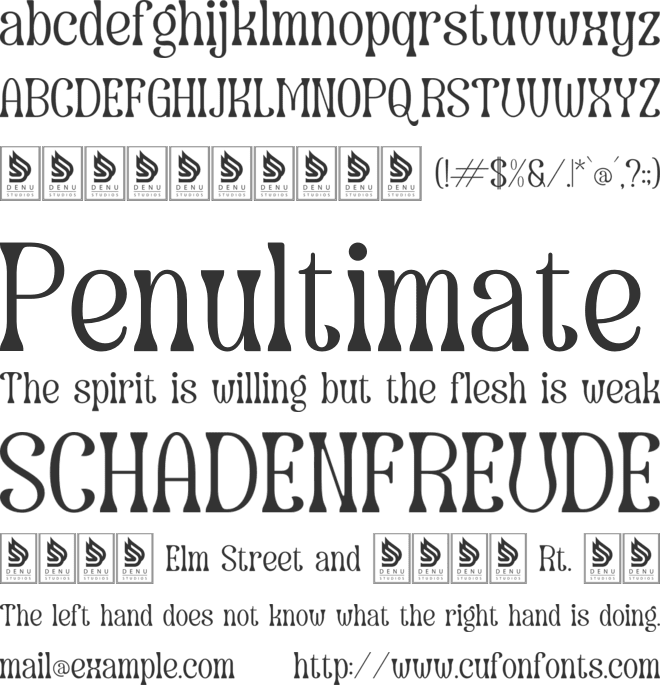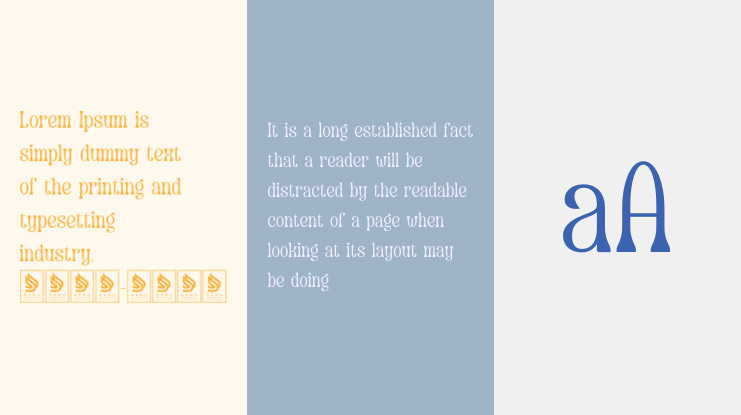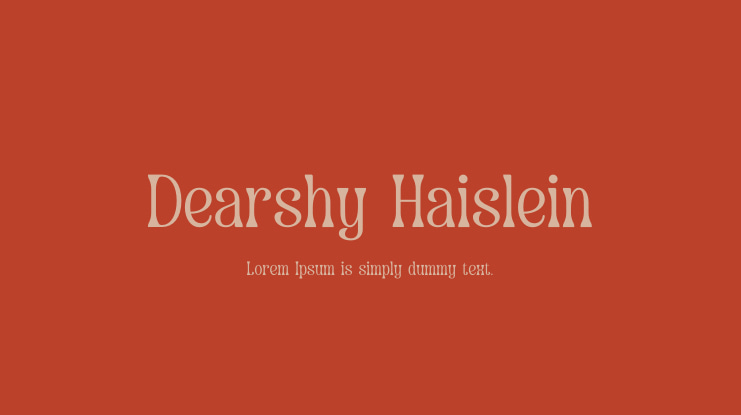
Dearshy Haislein | Slab Serif Font is an excellent choice for various projects such as logos, branding, homeware designs, product packaging, mugs, quotes, posters, shopping bags, t-shirts, book covers, name cards, invitation cards, greeting cards, labels, photography, watermarks, special events, and any other projects that require a Slab Serif Font touch.